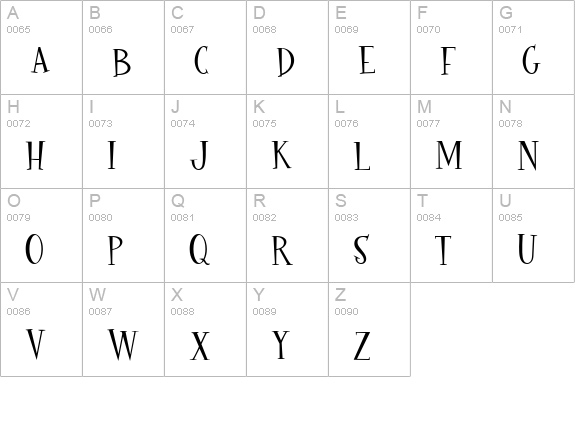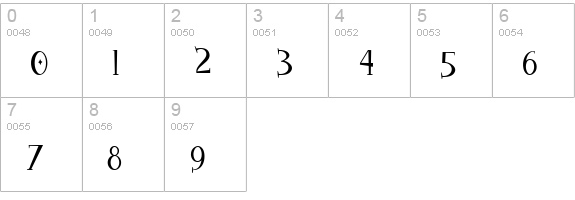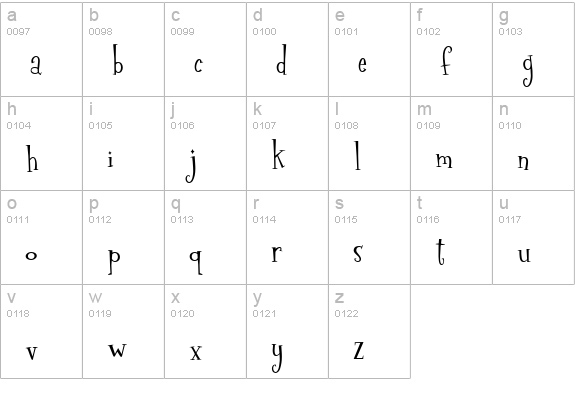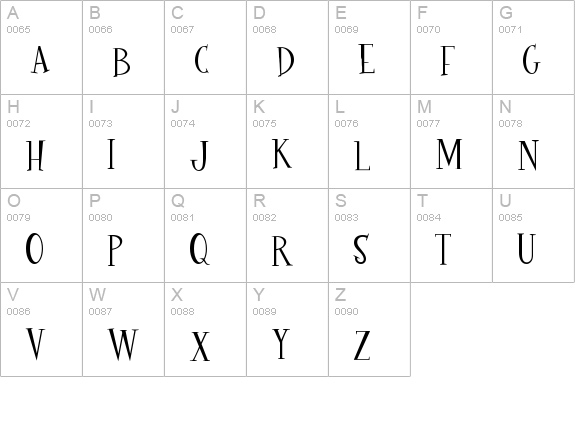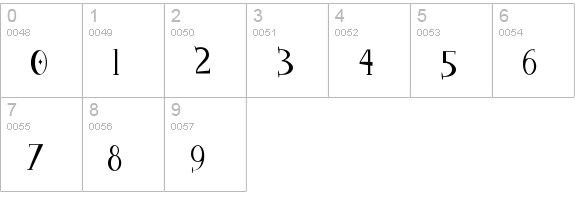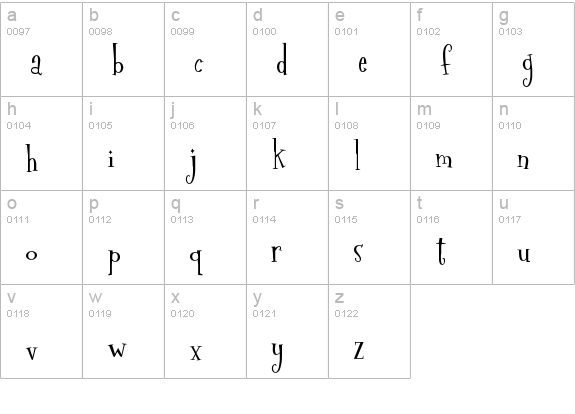
CK Hustle Font Details
CK Hustle font is a modern and stylish typeface that exudes energy and creativity. With its sleek lines and bold curves, this font is perfect for making a statement in your designs. Whether you're working on a branding project, creating eye-catching headlines, or designing posters, CK Hustle font will add a touch of sophistication and flair. What's even better is that CK Hustle font is available for free download at FontsMarket.com. So you can easily access this versatile and striking font to elevate your projects without any cost. Don't miss out on the opportunity to enhance your designs with CK Hustle font's unique charm and versatility. Download it today and let your creativity shine!